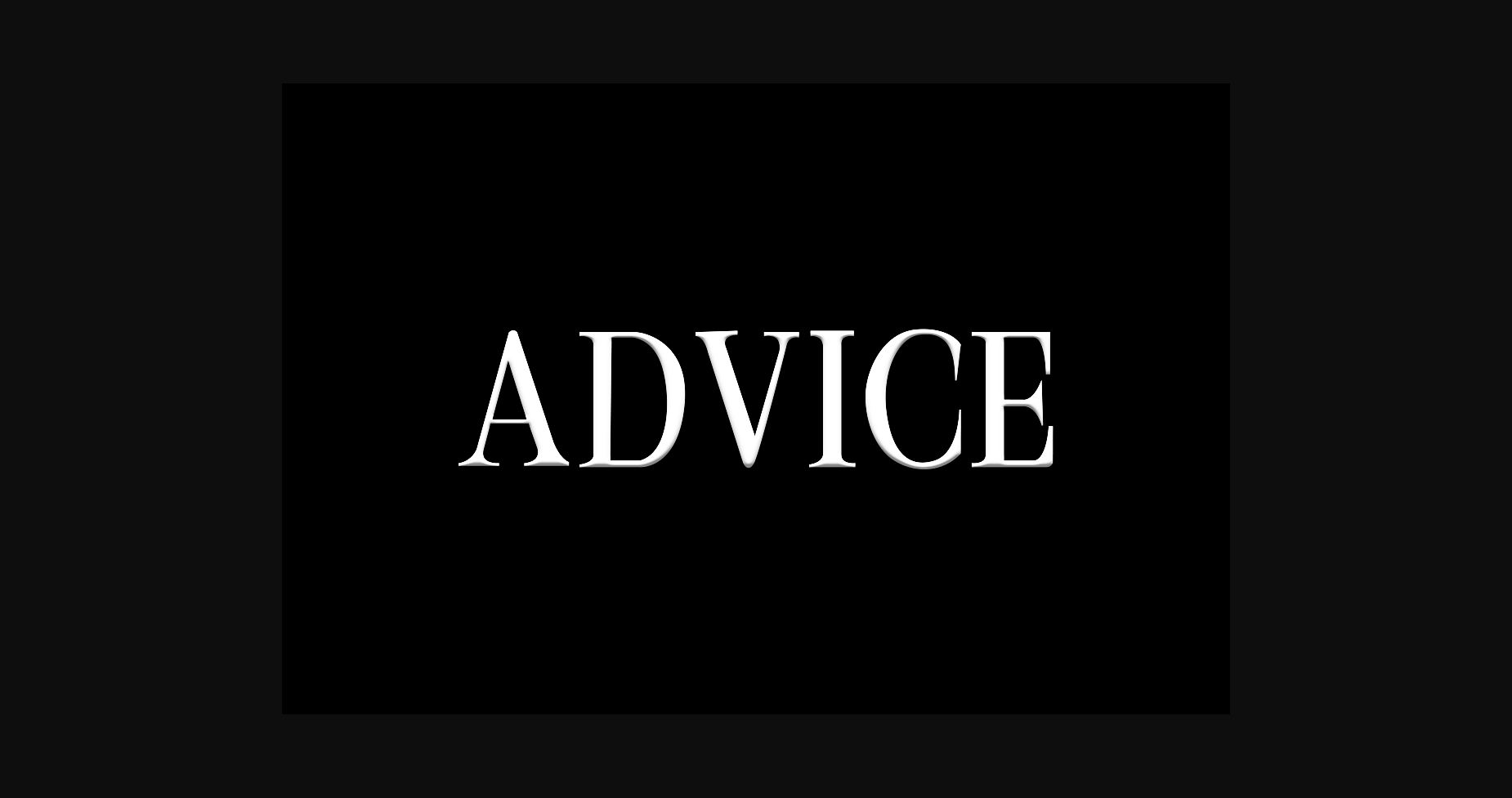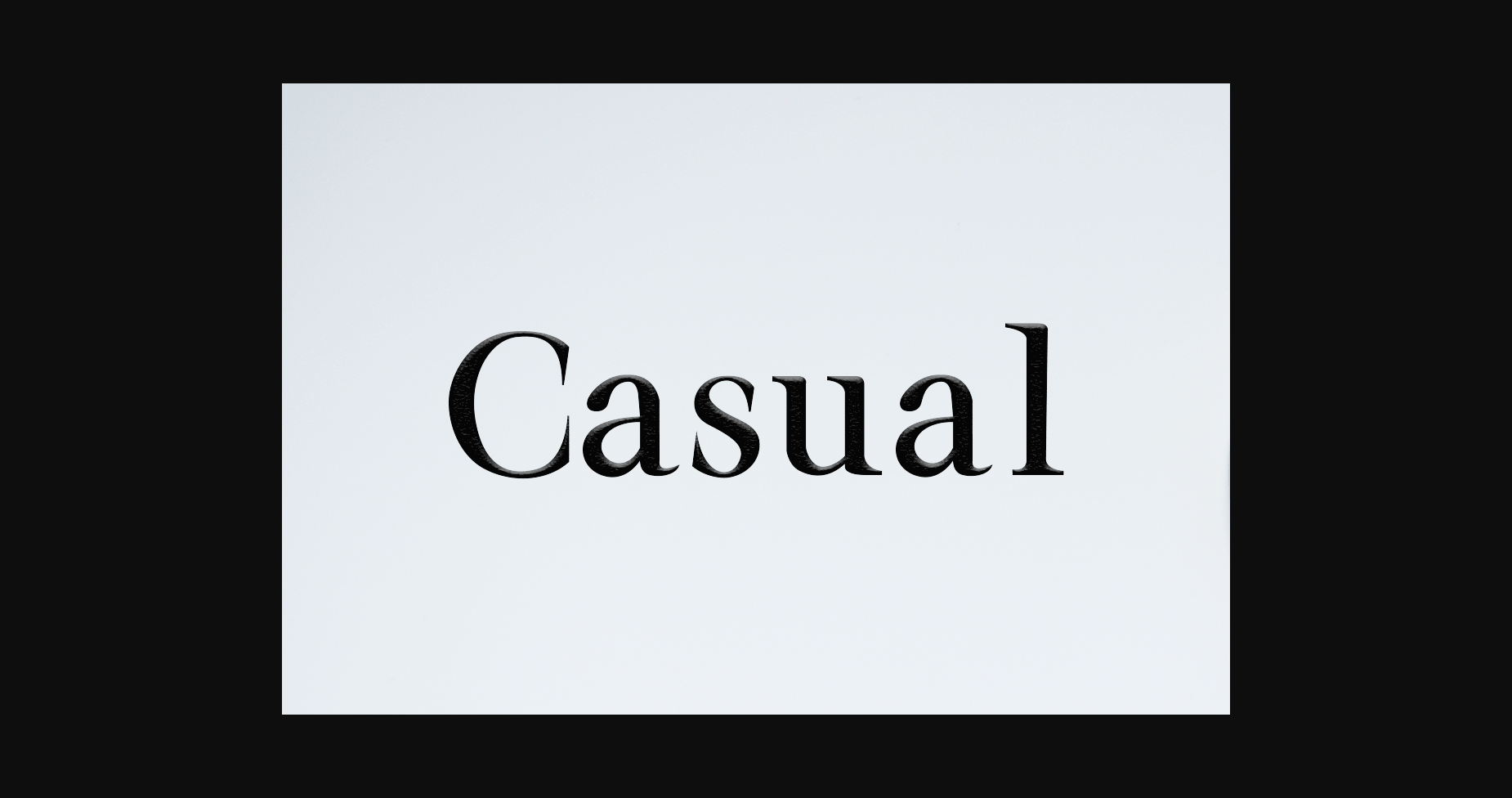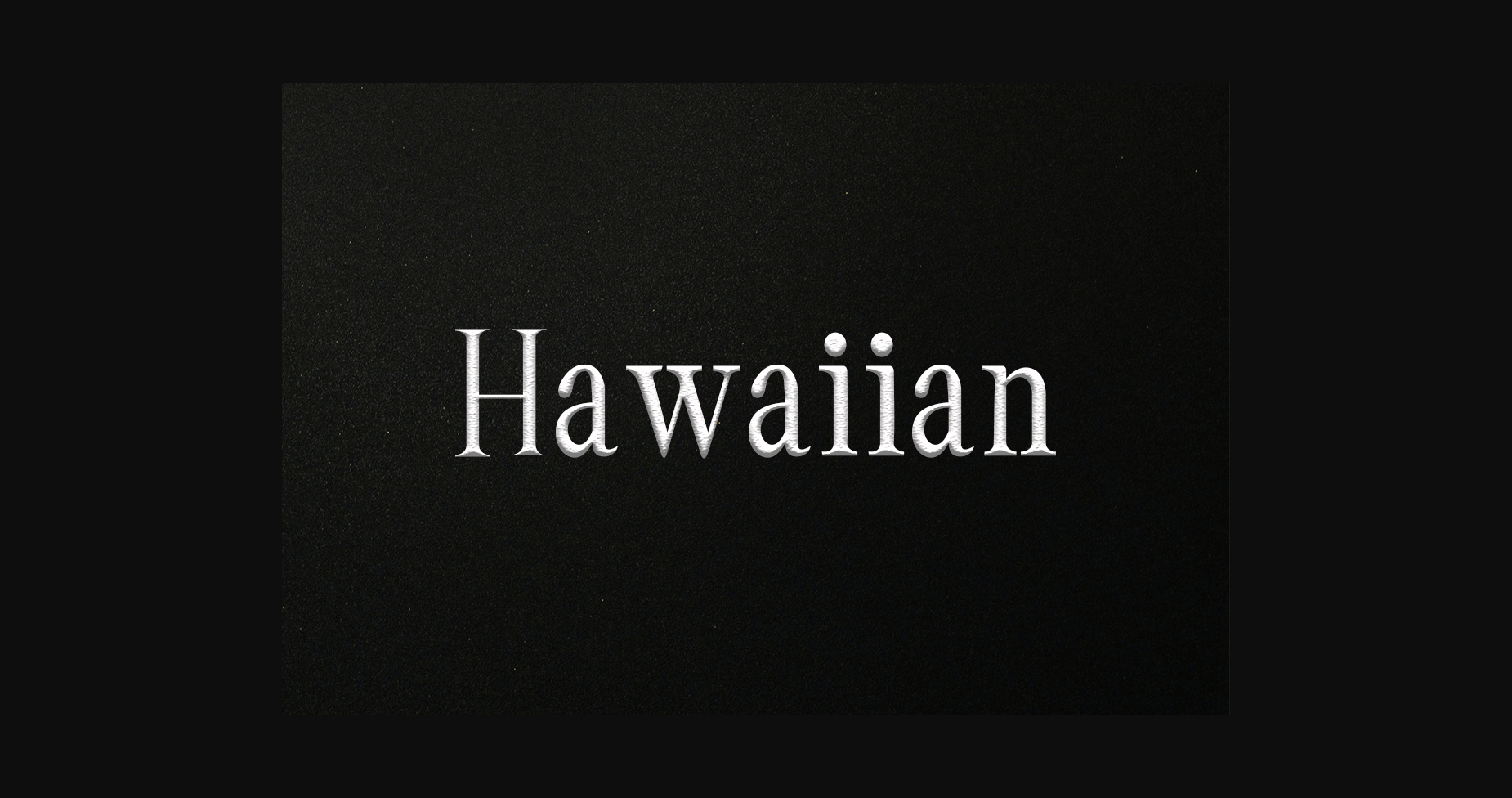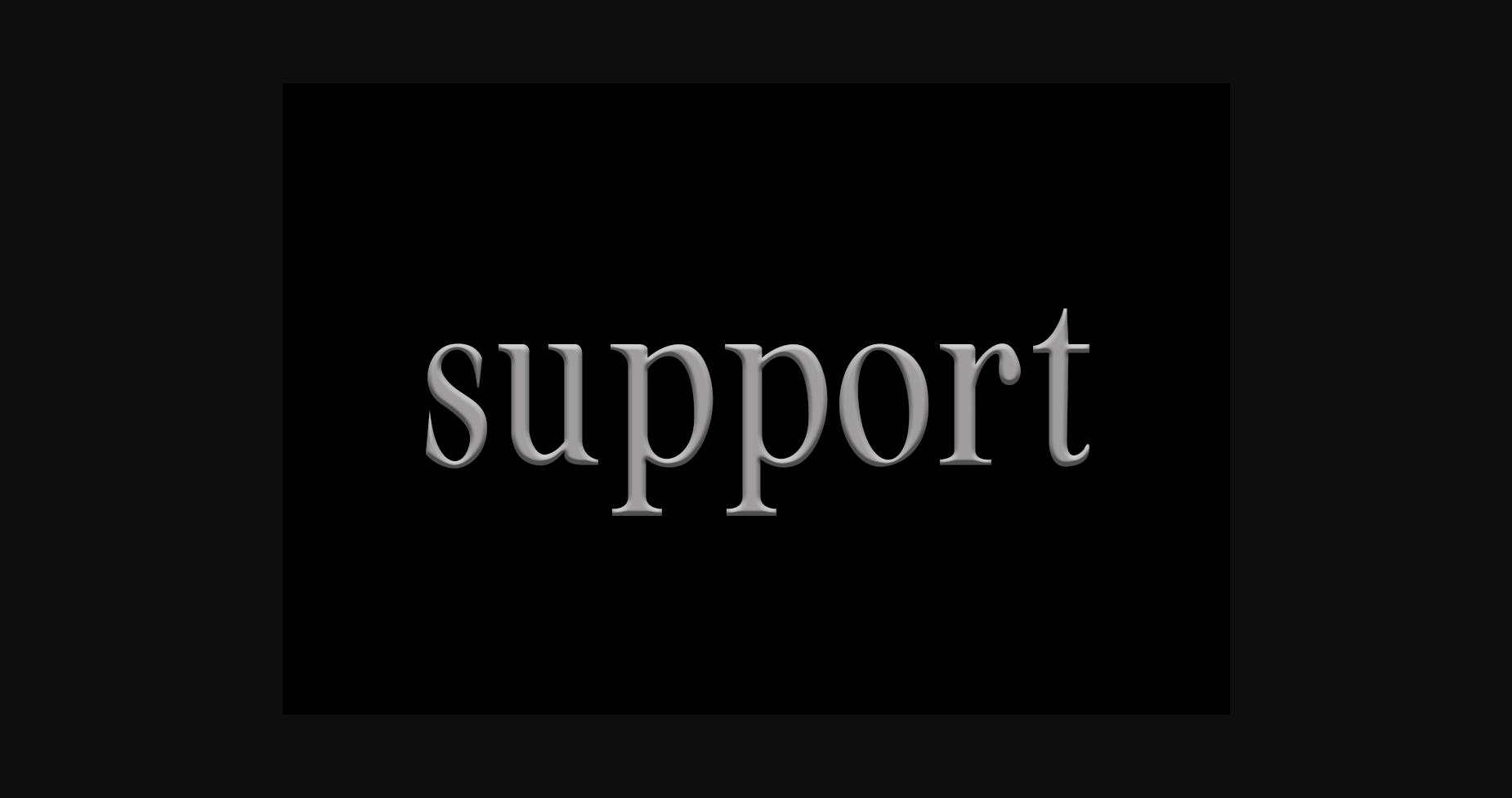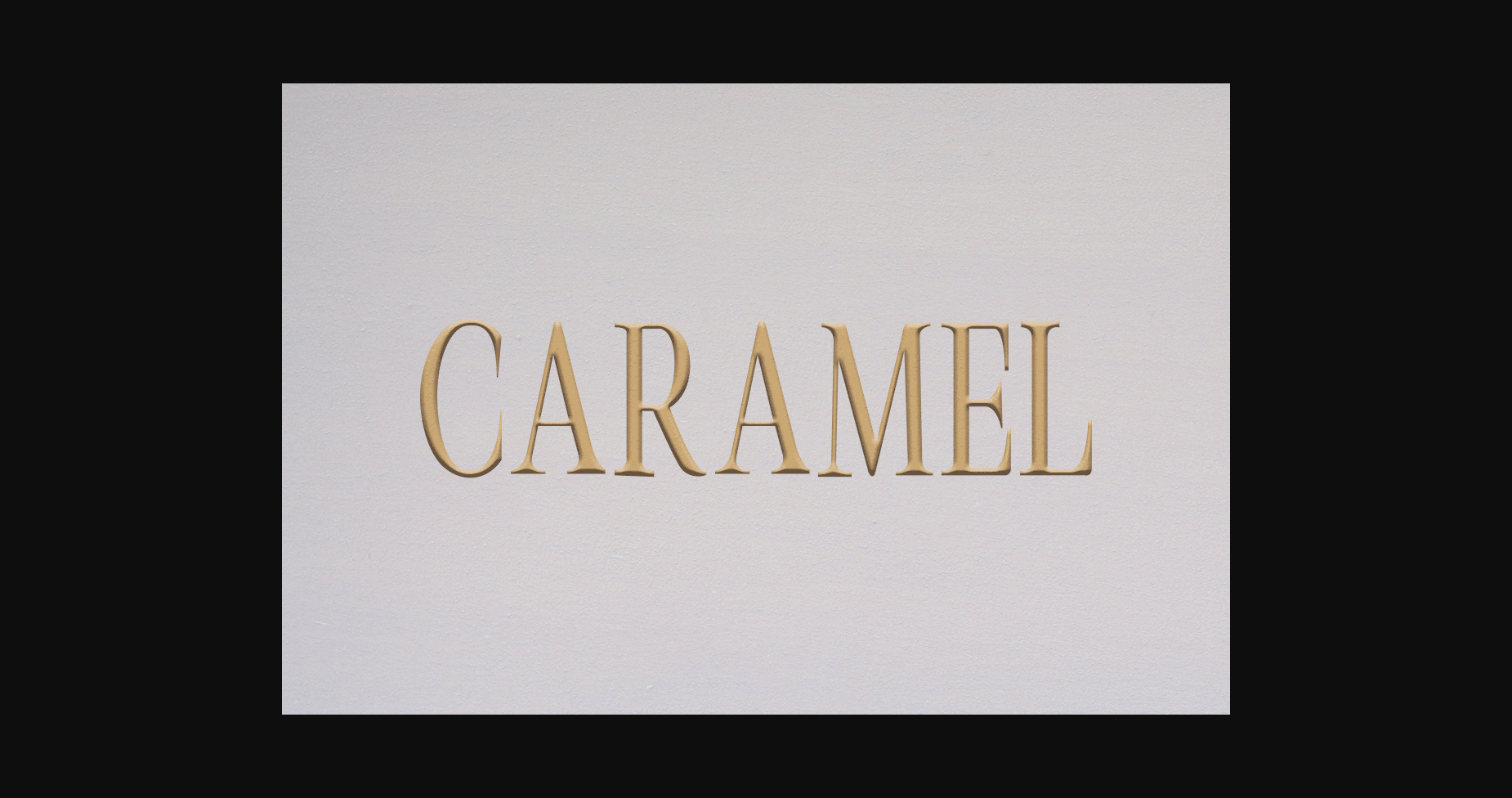
About Advice Font
Advice is a stylish and very elegant serif font. It is defined by smooth curves and is perfect for fashion branding or editorial design. Use this font for your designs, and explore its endless possibilities.